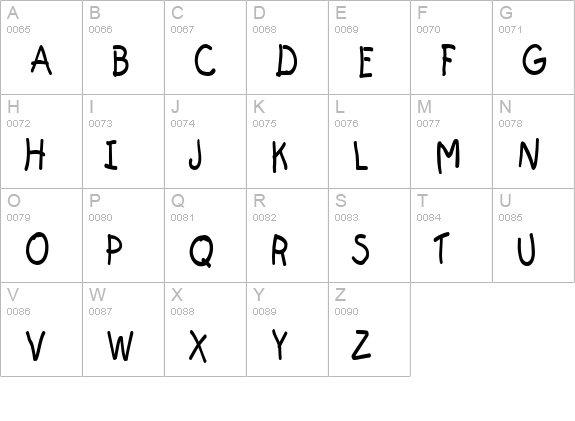
Catchup Thin Normal Font Details
Catchup Thin Normal is a delicate, low-contrast variant in the Catchup typeface family \xE2\x80\x94 well suited to fashion editorial, minimal branding, and high-contrast display.